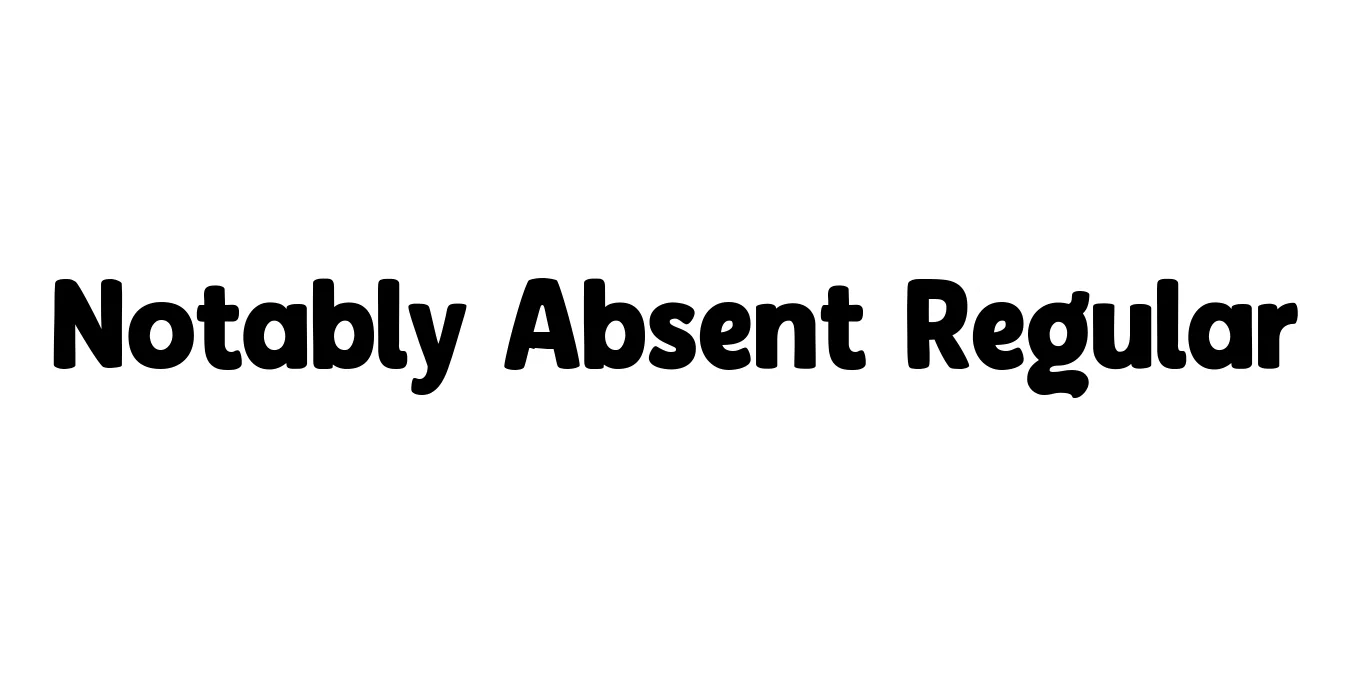
Notably Absent Regular
Designed by Darrell Flood
| Category | Handwritten |
| Designer | Darrell Flood |
Notably Absent Regular is a creative and expressive handwritten typeface crafted by the prolific designer Darrell Flood. This font stands out due to its organic, brush-like textures and informal character shapes, which provide a sense of authenticity and human touch to digital and print media alike. The balance between its artistic flair and readability makes it a versatile tool for designers looking to break away from sterile, traditional typography.
Released as part of Flood's extensive portfolio, the font has gained popularity for its natural flow and energetic aesthetic. It is particularly well-suited for projects that aim to convey a friendly, approachable, or rebellious tone. Whether used for large-scale displays or subtle accents, Notably Absent Regular brings a dynamic energy that elevates modern design projects and creative compositions.
Notably Absent Regular Best Uses
Captivating graphics for Instagram, Pinterest, and TikTok.
Distinctive logos and identity systems for creative startups.
Eye-catching prints for t-shirts, hoodies, and lifestyle merchandise.
Dynamic headlines for promotional banners and digital marketing.